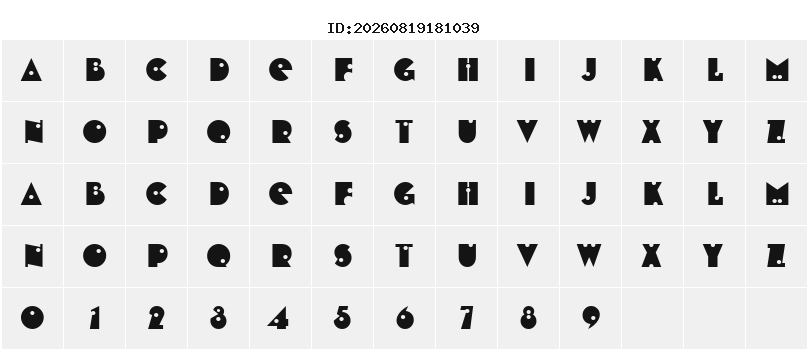
• Font Name: Shotgun BT
• Font ID: Shotgun, Geometric 091
• Full Font Name: Shotgun BT
• PostScript Name: ShotgunBT-Regular
Shotgun BT.ttf is a modern, elegant sans-serif font designed for ultimate readability and visual harmony. Perfect for branding, headlines, web design, and print materials.